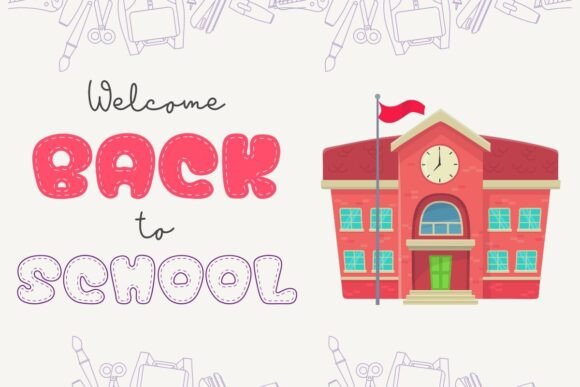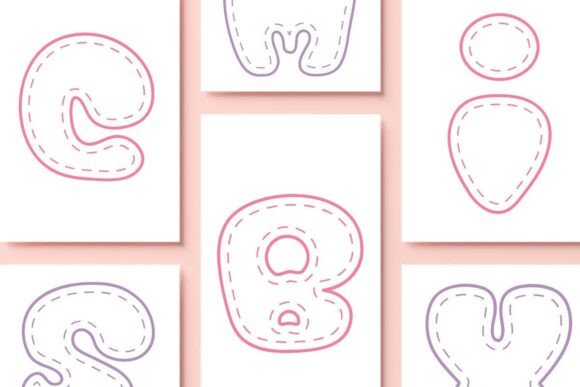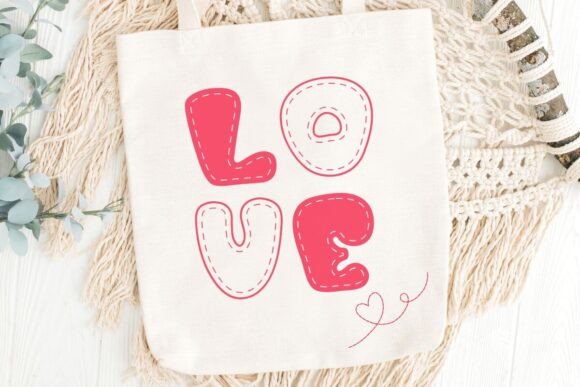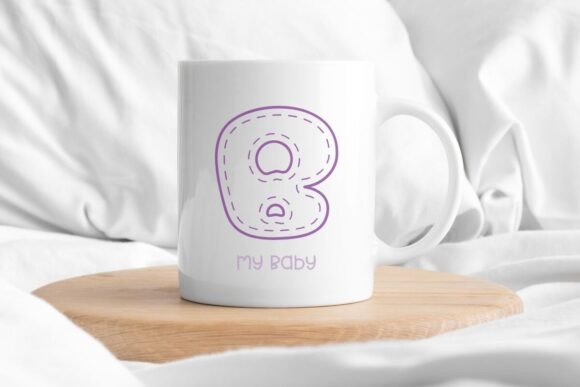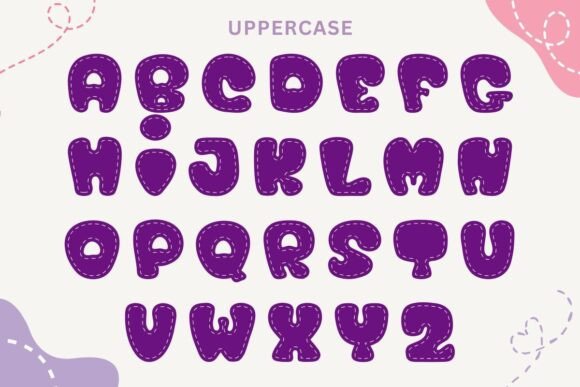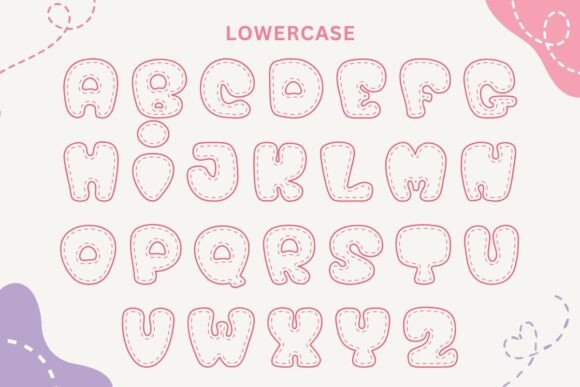
Introducing Dash Bubble Font: The Ultimate Playful Typeface for Crafty Designs
Are you a crafter, designer, teacher, or simply someone who loves playful and creative typography? Look no further than Dash Bubble Font, a fun and adorable decorative font that’s perfect for adding a personal touch to your projects. With its unique stitched bubble letter style, this font is sure to bring a smile to anyone’s face.
What is Dash Bubble Font?
Dash Bubble Font is a digital typeface designed to resemble stitched bubble letters. Its cute and playful appearance makes it an ideal choice for a variety of creative projects, from kids’ designs and sewing-themed graphics to scrapbooking and DIY crafts. Whether you’re creating greeting cards, invitations, or printables, this font is sure to add a lovely handmade touch to your creations.
Perfect for Crafters and Designers
Crafters and designers will love Dash Bubble Font for its versatility and charm. This font is perfect for:
- Kids’ projects: Create fun and engaging designs for children’s products, such as stickers, coloring books, and educational materials.
- Sewing-themed designs: Add a playful touch to your sewing patterns, tutorials, and craft projects.
- Scrapbooking: Use Dash Bubble Font to add a personal and whimsical touch to your scrapbook pages.
- DIY crafts: Create unique and eye-catching designs for your DIY craft projects, such as signs, labels, and gift tags.
- Greeting cards and invitations: Add a playful and festive touch to your cards and invites.
Why Choose Dash Bubble Font?
So, why should you choose Dash Bubble Font for your next project? Here are just a few reasons:
- Unique and playful style: Dash Bubble Font’s stitched bubble letter style is unlike any other font out there. Its playful appearance is sure to grab attention and add a touch of personality to your designs.
- Versatile: Dash Bubble Font can be used for a wide range of projects, from digital designs to print materials.
- Cute and charming: This font is perfect for designers and crafters who love creating cute and charming designs.
Tips for Using Dash Bubble Font
Here are a few tips for getting the most out of Dash Bubble Font:
- Experiment with colors: Try pairing Dash Bubble Font with different colors and textures to add depth and interest to your designs.
- Mix and match: Combine Dash Bubble Font with other fonts and graphics to create unique and eye-catching designs.
- Use it for headings: Dash Bubble Font is perfect for headings and titles, but you can also use it for body text for a more playful look.
In conclusion, Dash Bubble Font is a fun and adorable decorative font that’s perfect for crafters, designers, teachers, and anyone who loves playful and creative typography. With its unique stitched bubble letter style, this font is sure to add a lovely handmade touch to your creations. Whether you’re making cute children’s products, embroidery-themed designs, or fun printables, Dash Bubble Font is the perfect choice. So why wait? Download Dash Bubble Font today and start creating your own playful and charming designs!